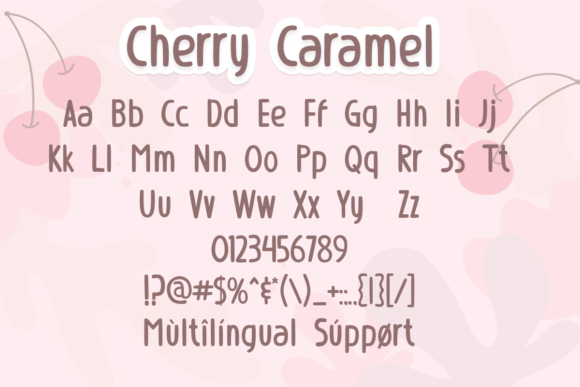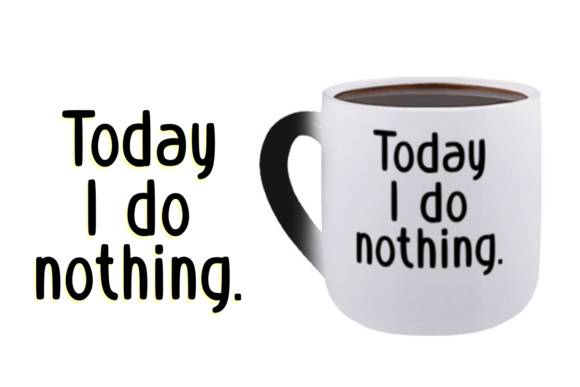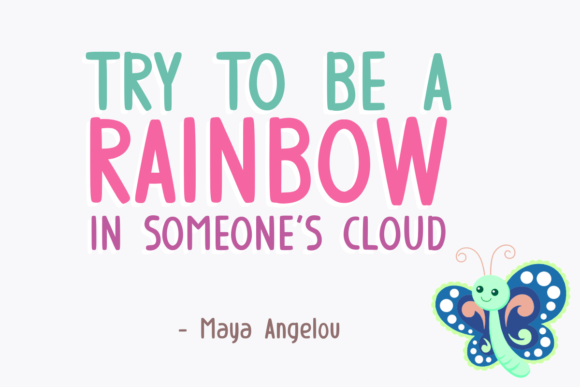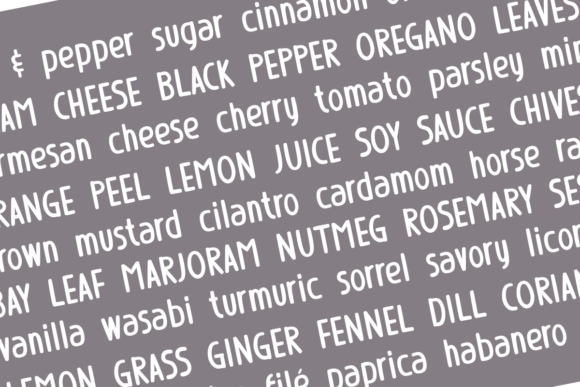
Introduction to Cherry Caramel Font
Do you remember that moment when you stumbled upon the perfect font to elevate your design project? For many of us, that moment is a game-changer. It’s the moment when our ideas start to take shape, and our creations come alive. Today, we’re excited to introduce you to the Cherry Caramel Font, a high-quality, unique handwritten font that’s sure to make your designs stand out.
This free download is a valuable resource for designers, offering a touch of elegance and sophistication to any creative project. With its transparent background, the Cherry Caramel Font is perfect for adding a delicate, handwritten touch to your designs without overpowering the rest of the elements.
Key Features of Cherry Caramel Font
- High-quality, professional font design ideal for creative projects, including invitations, posters, and other design elements.
- Unique, hand-drawn design with a transparent background, allowing for easy customization and integration into various design elements.
- Perfect for designers looking for a distinctive, creative font to elevate their designs and stand out from the crowd.
Honest Review: Cherry Caramel Font
I recently stumbled upon the Cherry Caramel Font, and I have to say, I was pleasantly surprised. This free download has been a great addition to my design resource library.
- ✨ Unique aesthetic: The Cherry Caramel Font has a distinct, high-quality design that stands out from more generic fonts.
- ✨ Transparent background: This feature allows for seamless integration with various design elements and backgrounds.
- ✨ Great for creative projects: Whether you’re working on a branding project or a digital artwork, this font is sure to bring a touch of sophistication.
- ⚠️ Limited font weights: While the font is stylish, it would be beneficial to have more font weights to cater to various design needs.
- ⚠️ Not suitable for all text types: Due to its unique design, this font may not be the best choice for long blocks of text or formal documents.
Overall, the Cherry Caramel Font is a great addition to any design library. While it may have some limitations, its unique aesthetic and high-quality design make it a valuable resource for creative projects. I would definitely recommend giving it a try!
Tips for Getting the Most Out of Cherry Caramel Font
Experiment with different font sizes, styles, and colors to create a unique visual effect. Combine the Cherry Caramel Font with other design elements to add depth and interest to your project.
The Cherry Caramel Font is ideal for creative projects such as wedding invitations, food blogs, and social media graphics. Its high-quality design and transparent background make it a versatile choice for any project.
Compared to Cherry Caramel Font, Great Vibes has a more refined and sophisticated look, making it suitable for high-end design projects. While Cherry Caramel Font has a more playful and whimsical feel, Great Vibes is ideal for projects that require a touch of elegance and sophistication.